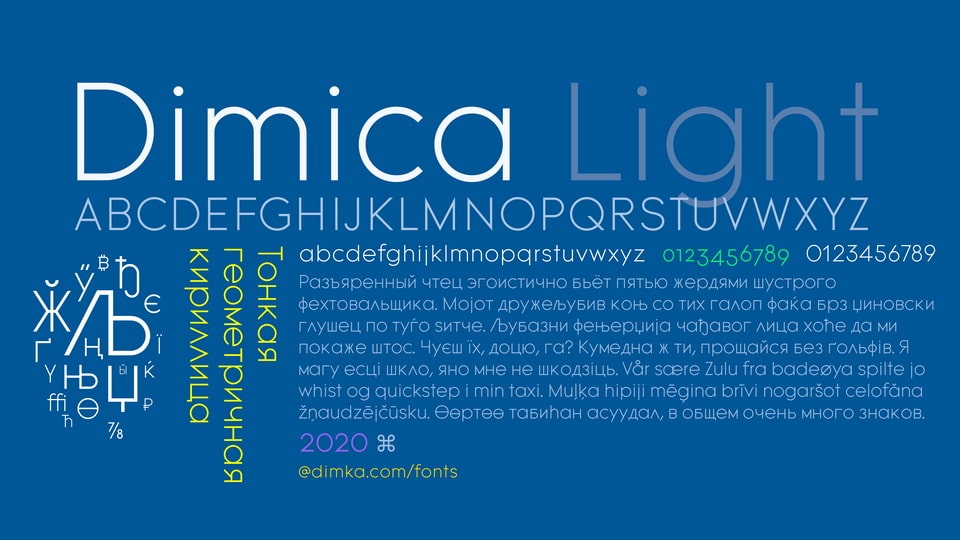
Download Dimica font, a sleek and minimalist geometric sans serif typeface that embodies balance and clarity, perfect for clean, contemporary layouts.
Designer: Dimka